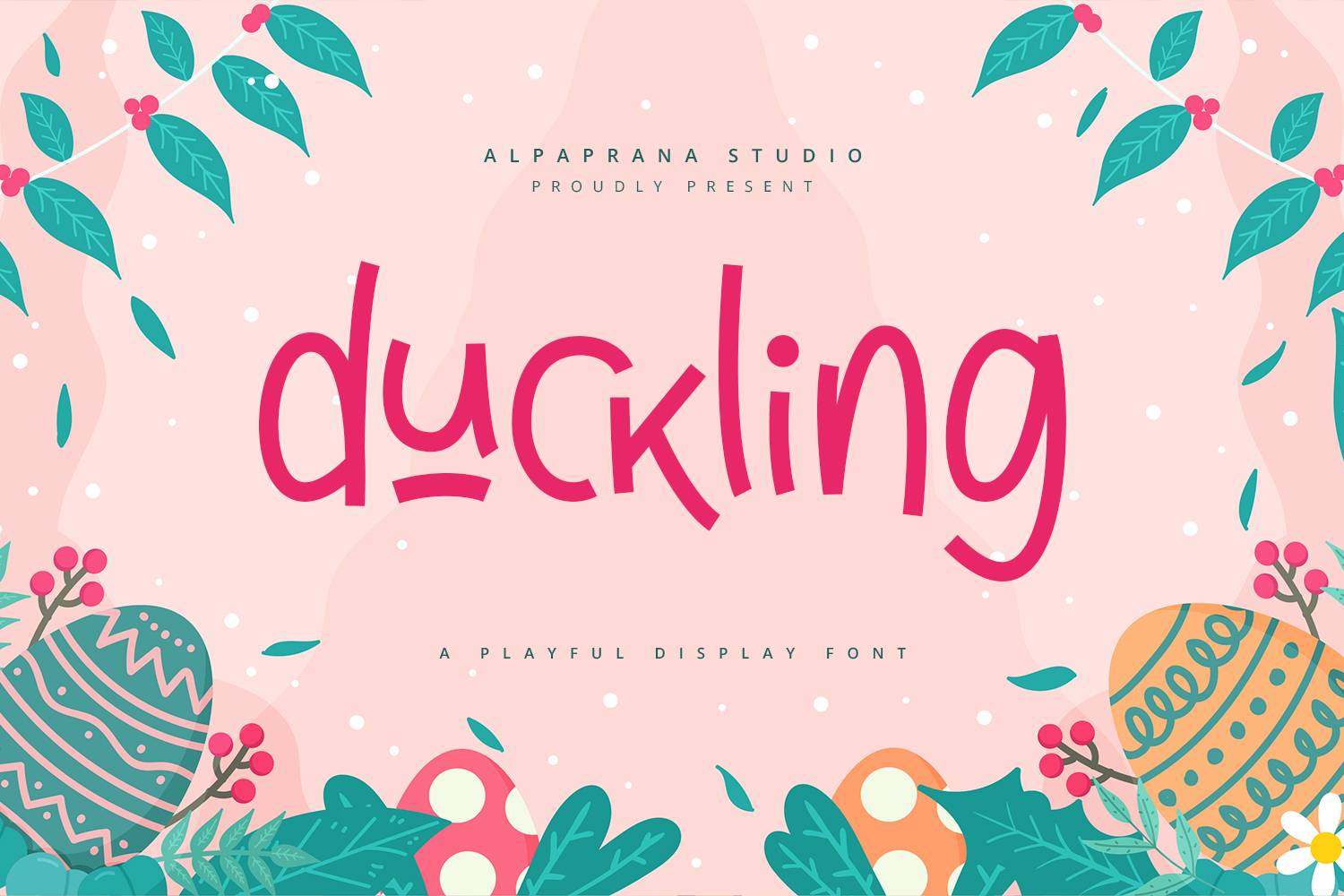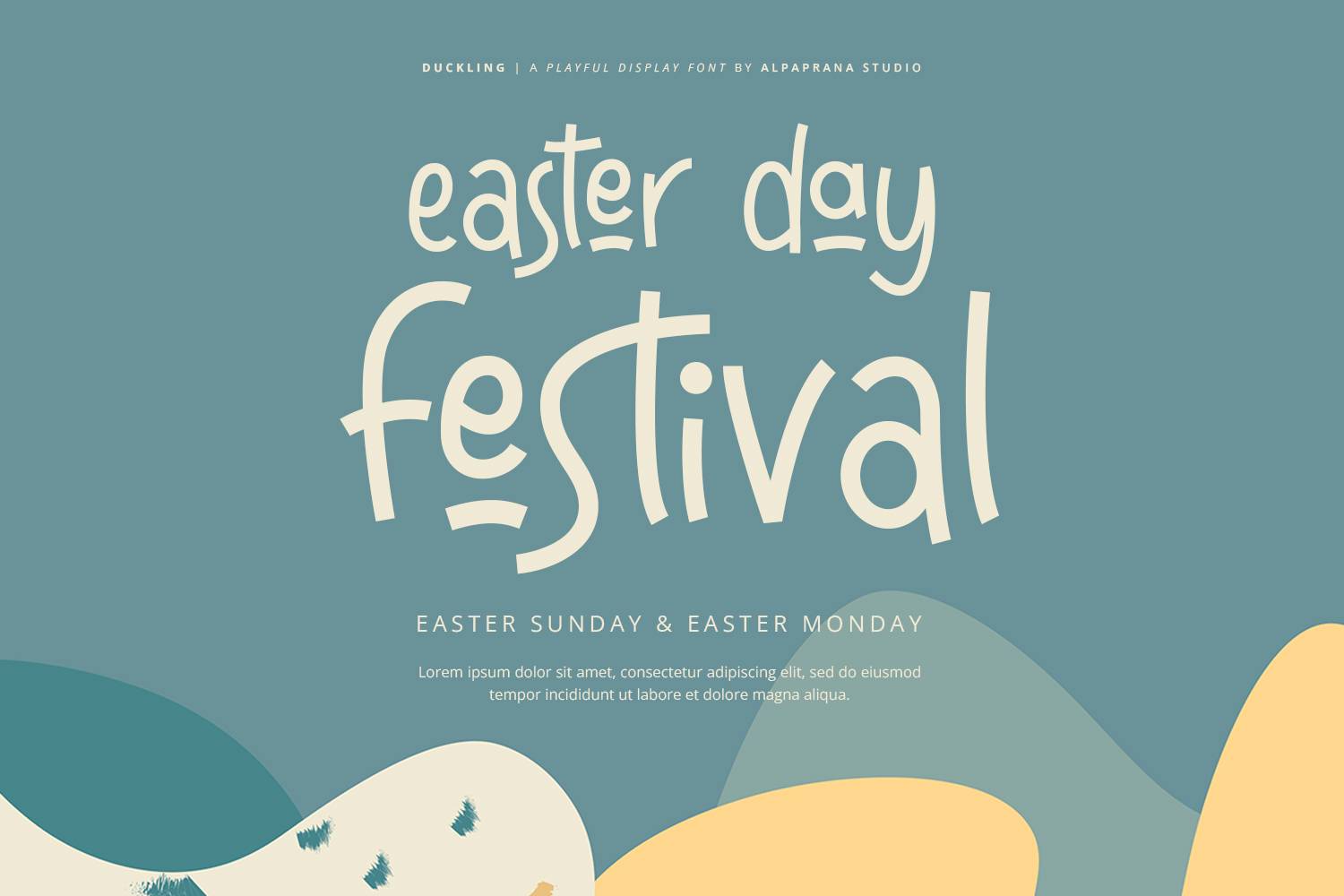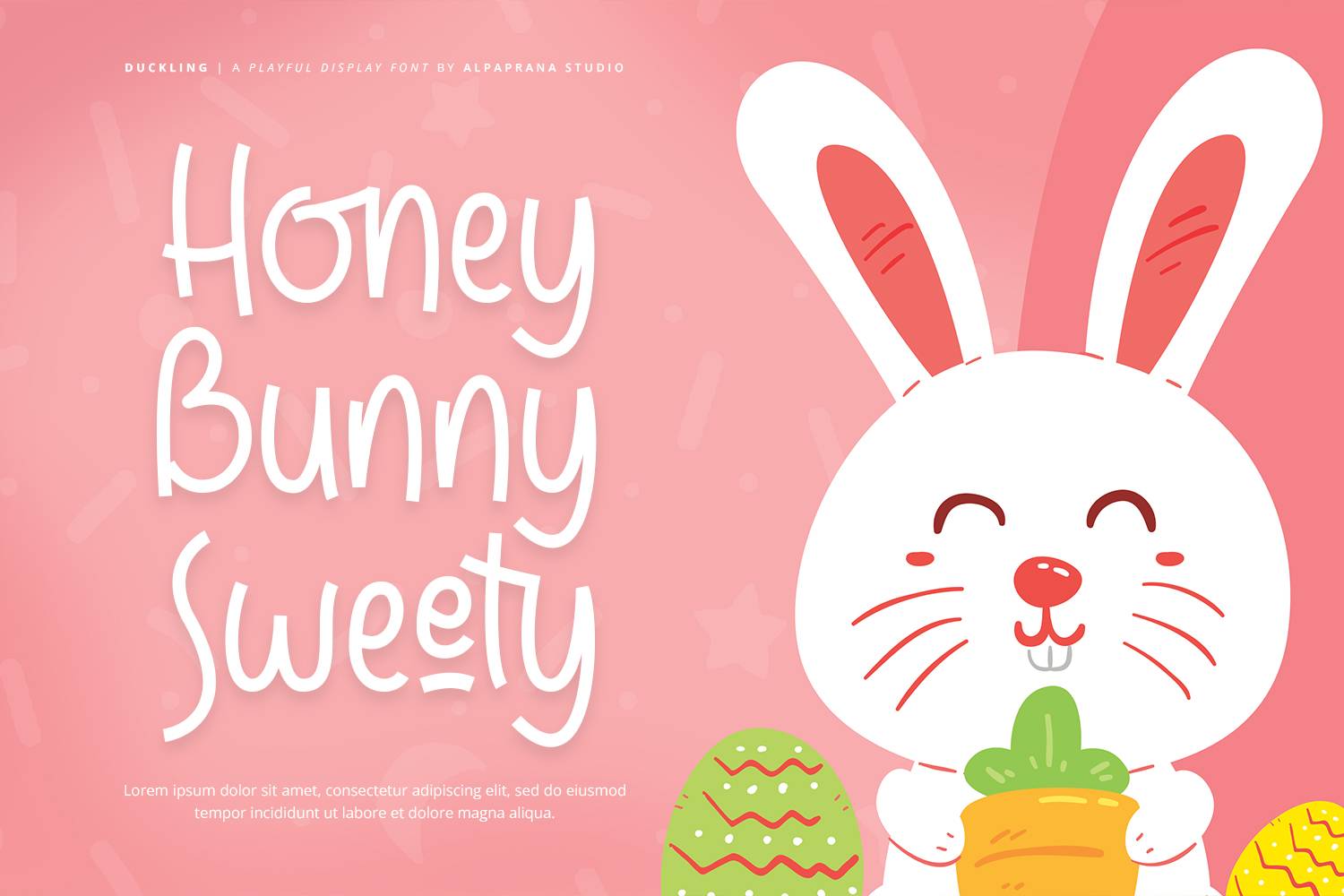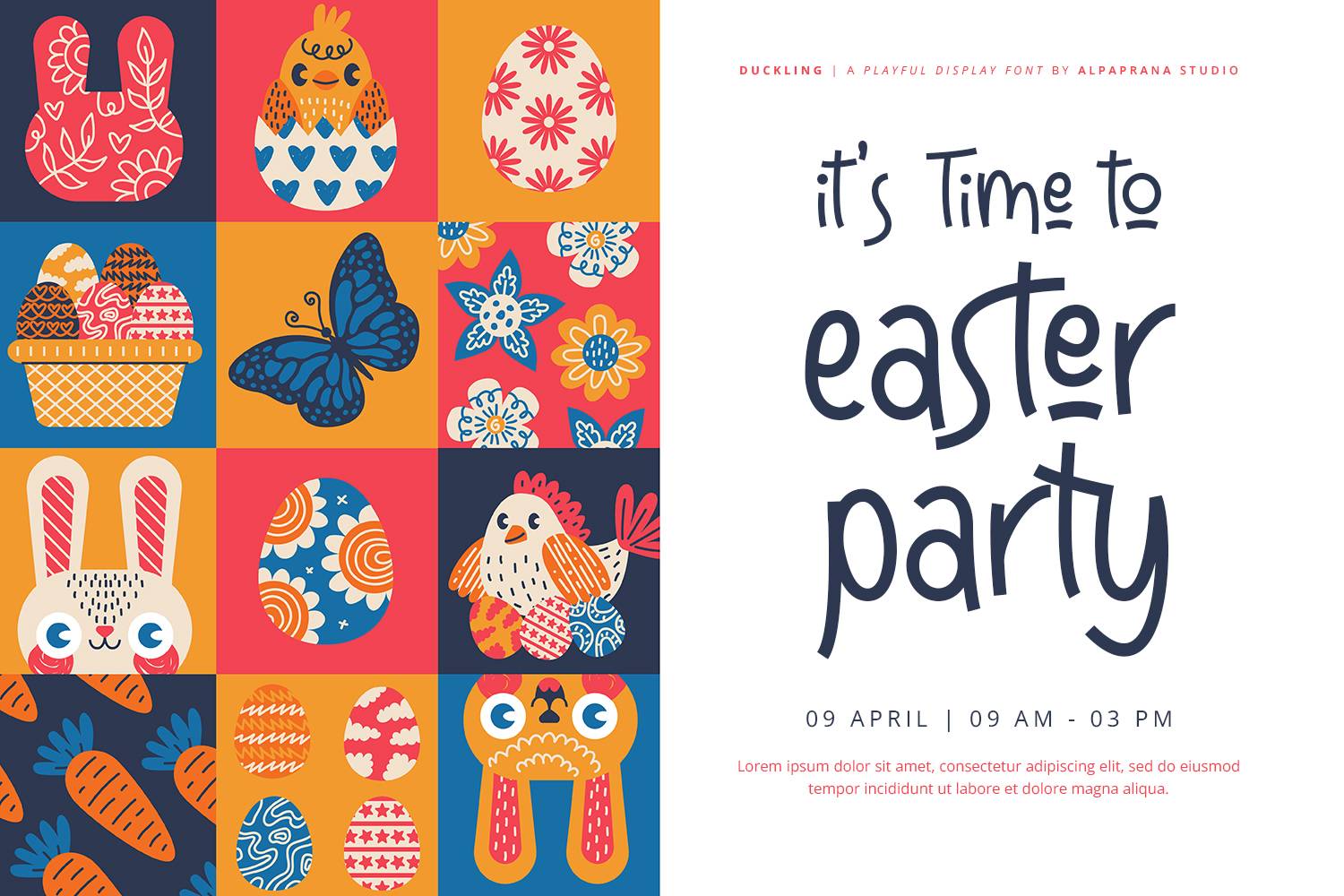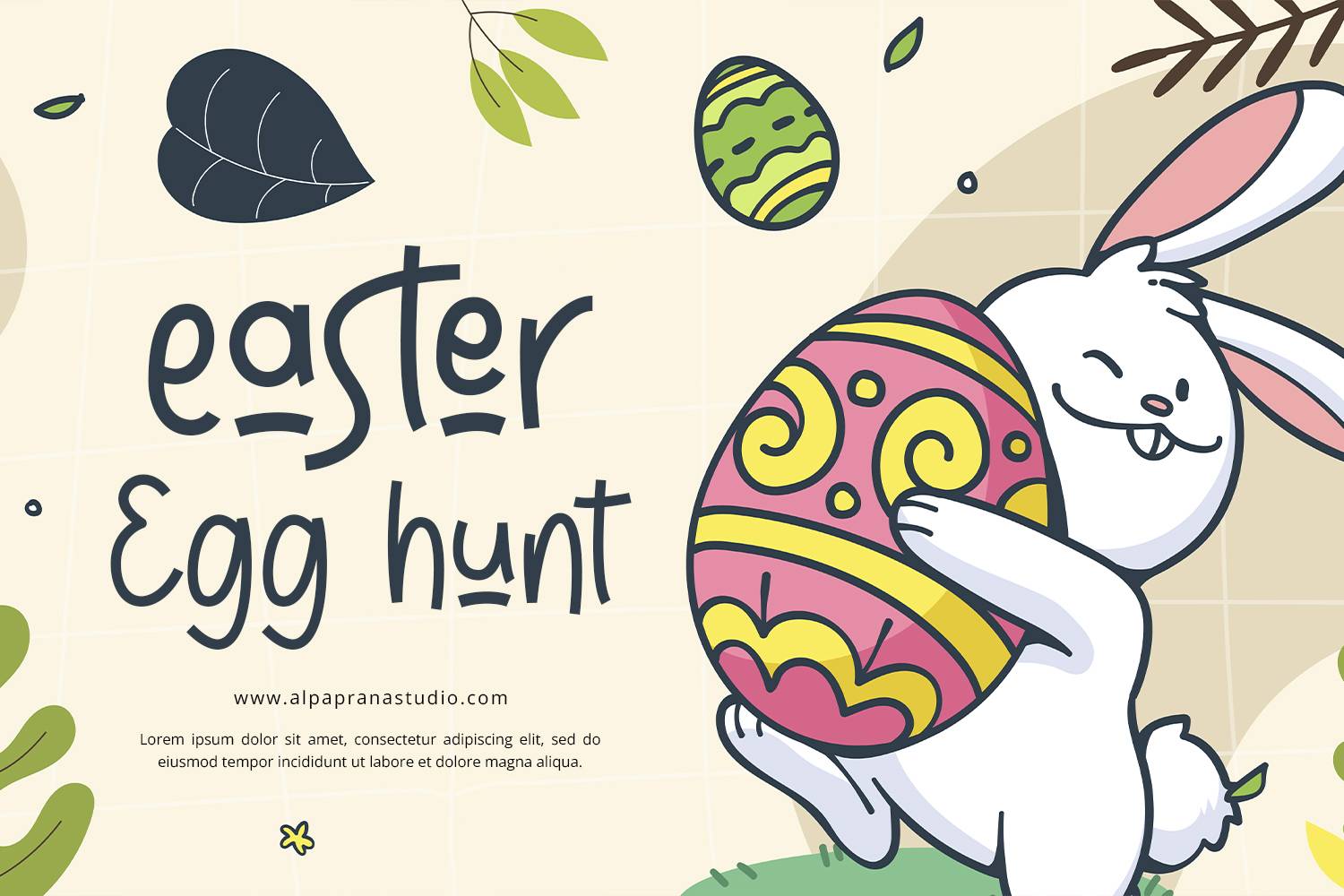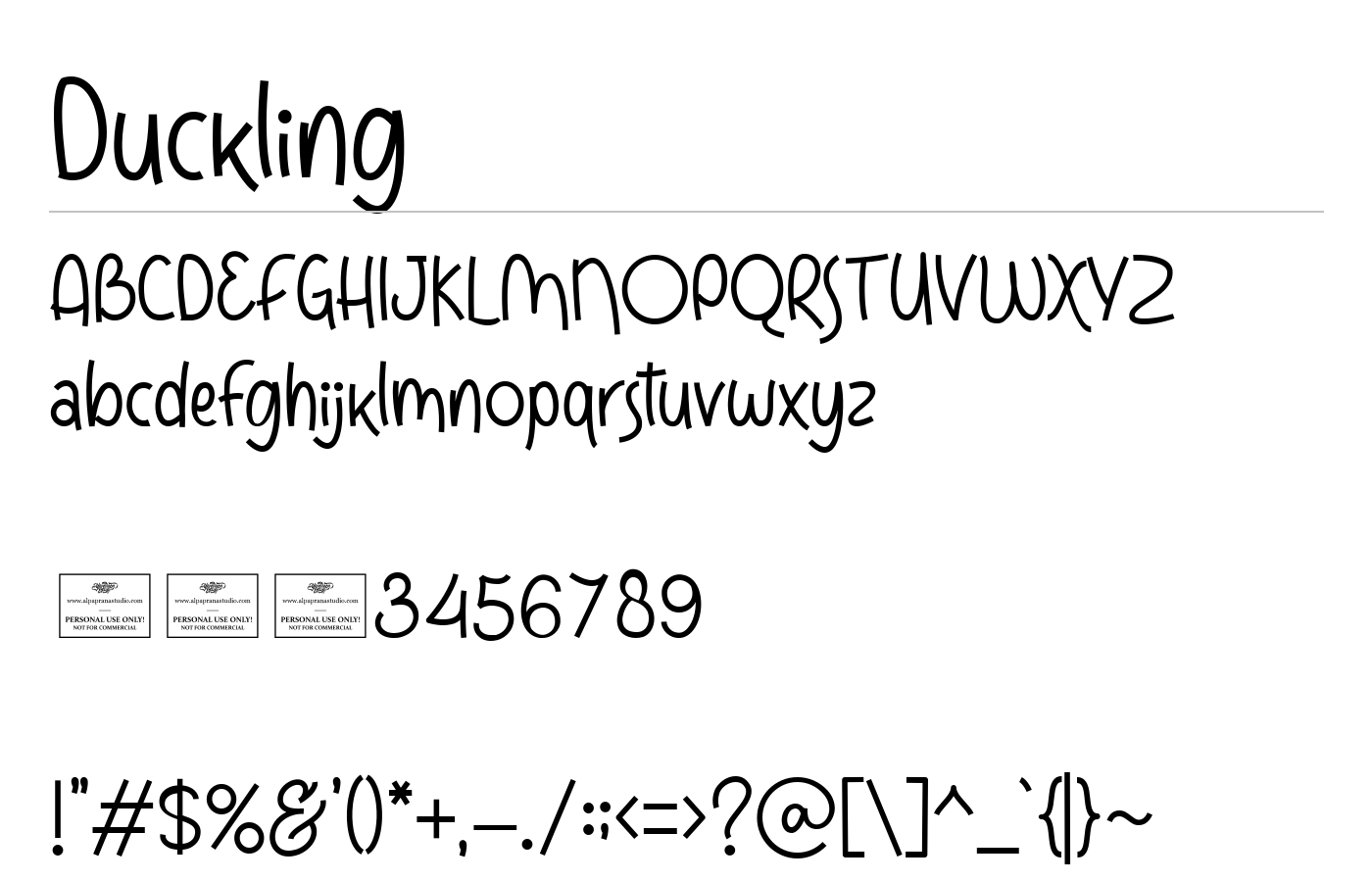
Duckling Font is a playful and informal handwritten typeface with a light weight and tall, narrow letterforms. Its quirky characters, featuring rounded strokes and slight irregularities, give it a friendly, approachable personality, making it ideal for casual designs, children’s materials, and creative branding. This font works best in headlines, logos, and packaging where a fun, personal touch is needed.